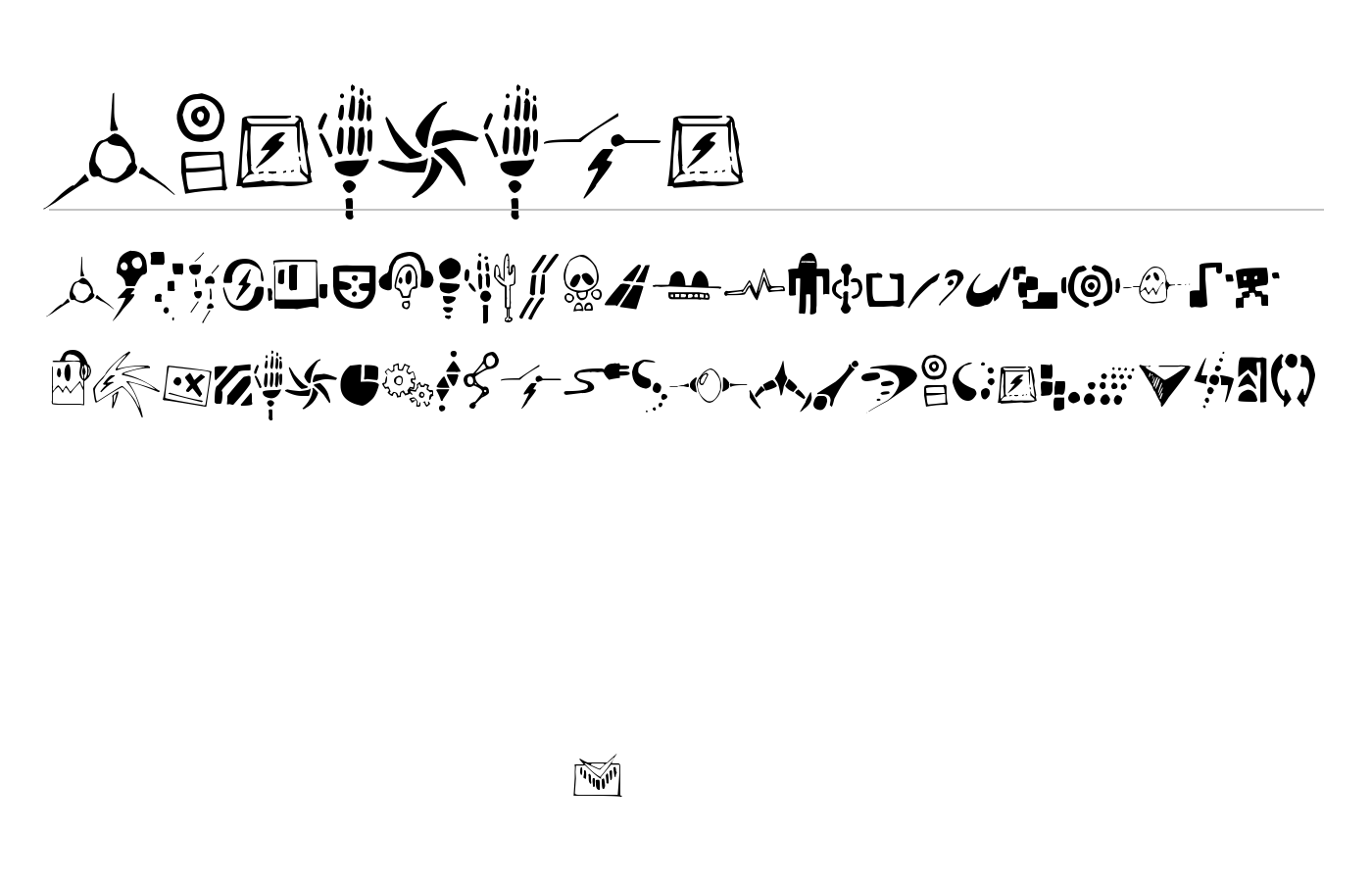
Artefekt is a highly stylized, symbolic dingbat font featuring an eclectic mix of abstract shapes and futuristic, tech-inspired icons. Its bold, compact design lends a graphic and modern edge, making it ideal for creative projects that want to convey innovation, digital themes, or a playful yet cutting-edge vibe. Perfect for logos, posters, and unique branding where a distinctive visual statement is key.
Artefekt Font
About Artefekt Font